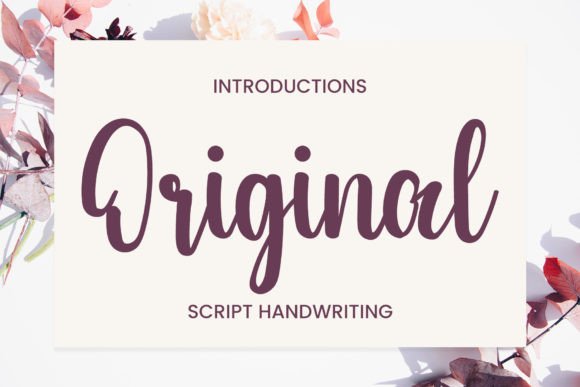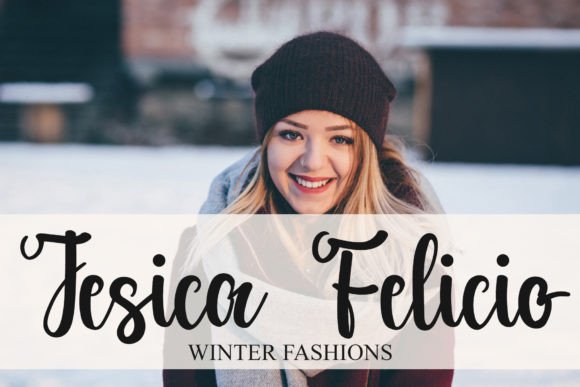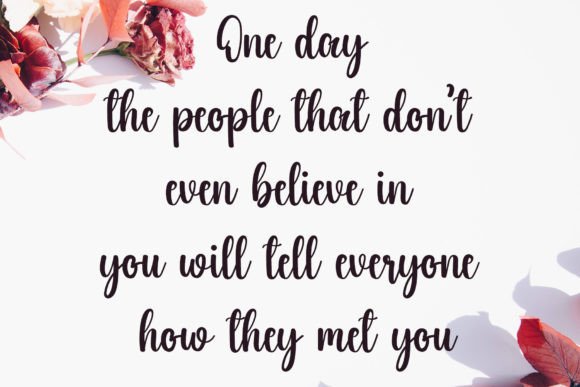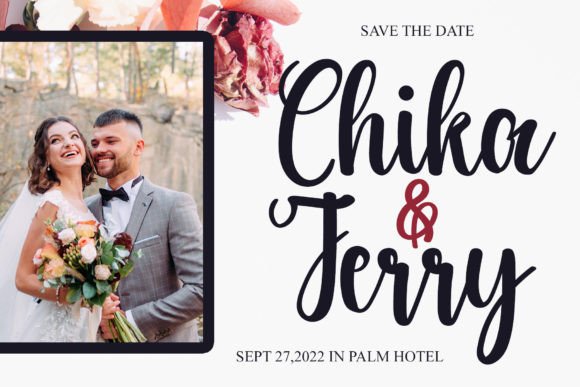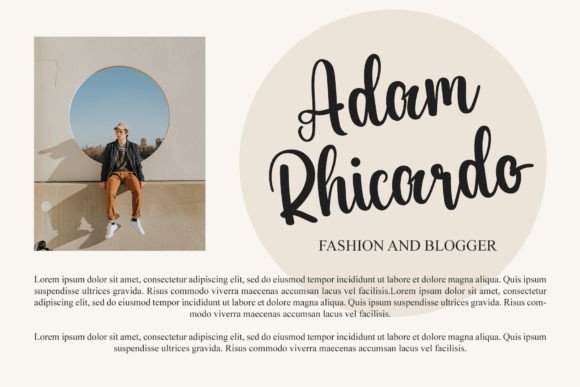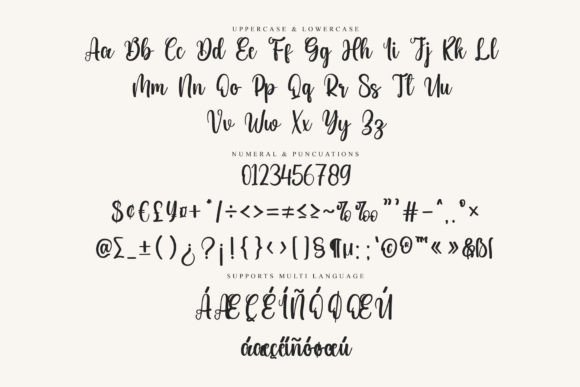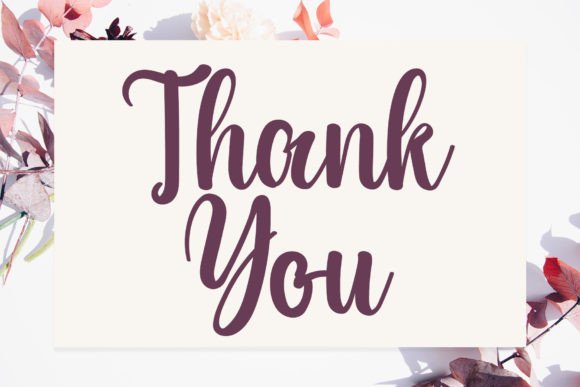
Original Font
Introducing the Original Font
The Original Font is a modern and friendly handwritten typeface, meticulously crafted with attention to detail. This font can become a valuable asset in your font library, enhancing a wide range of creative projects. Its charm lies in conveying a sense of modernity and friendliness, making it suitable for various design contexts.
Why Choose This Font?
• Modern Appeal: The Original Font offers a contemporary and approachable aesthetic, ideal for branding, social media graphics, and posters.
• Versatility: It adapts well to different design projects, allowing you to communicate your message with a friendly touch.
Applications of the Original Font
• Branding: Use this font to create logos and branding materials that stand out with a modern flair.
• Social Media: Enhance your social media posts with visually engaging text that captures attention.
• Print Materials: Perfect for designing posters and flyers that require an inviting and contemporary look.
The Impact of Using This Font
Incorporating the Original Font into your creative process elevates your work by making it visually appealing and memorable. This font becomes a dependable tool for designers seeking to create designs that resonate with a contemporary aesthetic. Its versatility ensures that your designs exude a modern essence, enhancing any creation.
The Value It Brings
This typeface excels in adding a welcoming and contemporary touch to various design projects. Its meticulous craftsmanship makes it a valuable choice for designers looking to create visually appealing work. By choosing this font, you ensure your designs are not only modern but also engaging and unique.
This font is also ideal for various creative projects beyond traditional uses. It can enhance digital designs with its friendly flair, making it suitable for websites, brochures, or mobile interfaces. The Original Font adapts well to different screen sizes while maintaining its charm. As design trends evolve, this font remains relevant due to its timeless appeal, balancing style with functionality effectively.